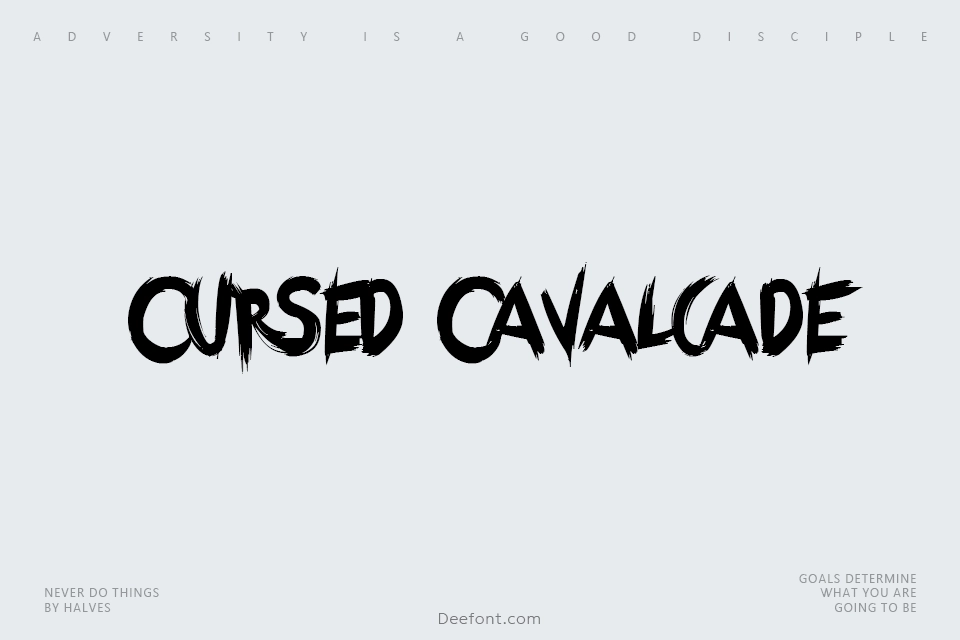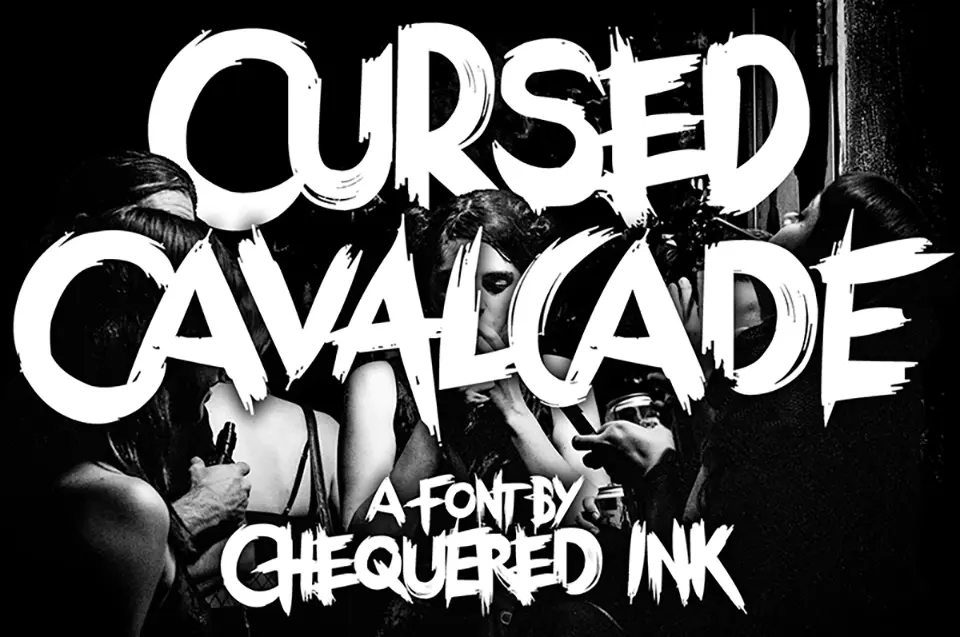
Cursed Cavalcade Font
Cursed Cavalcade is a bold, striking script display font by Chequered Ink, featuring an edgy trash aesthetic with dramatic strokes and rebellious flair. This eye-catching typeface combines calligraphic elegance with chaotic energy, making it perfect for attention-grabbing posters, edgy branding, logos, and daring digital art projects. With its unique character and dynamic personality, Cursed Cavalcade brings intensity and visual impact to any creative design. The font supports over 200 languages and offers 221 glyphs, providing versatile options for global creative applications.